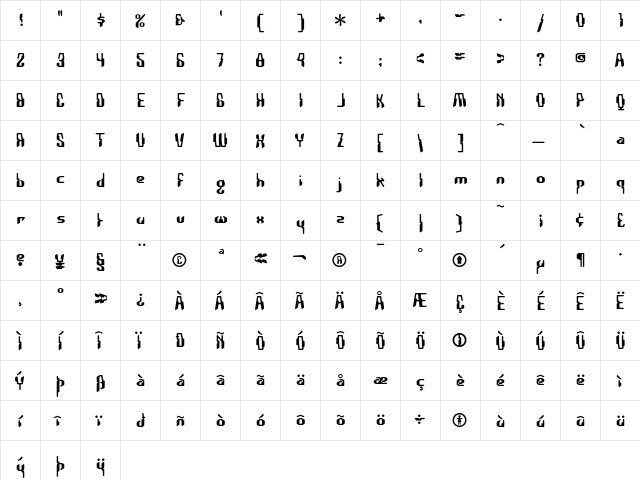
Coaxial Regular
Design Context for Coaxial Typeface
Coaxial is a composed and adaptable typeface that performs quietly and consistently across a wide range of design contexts.